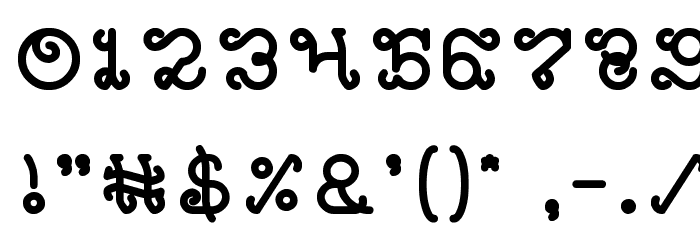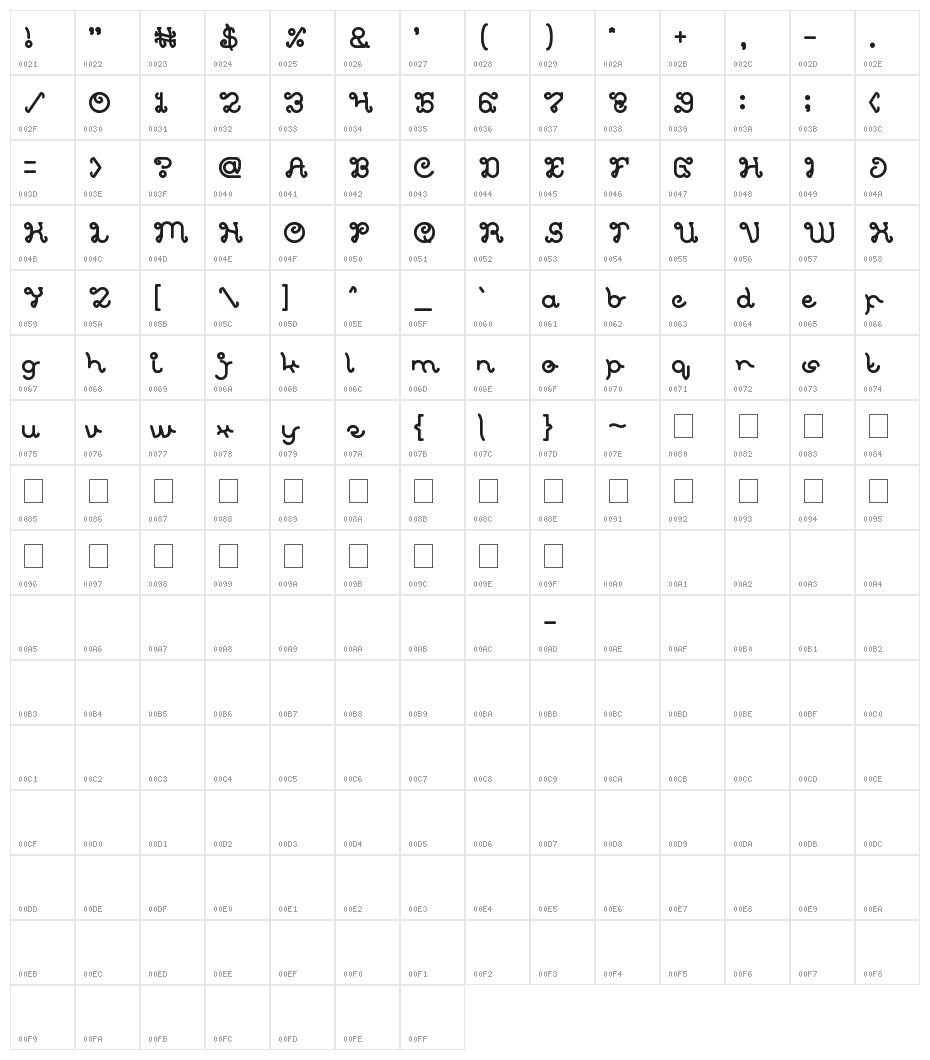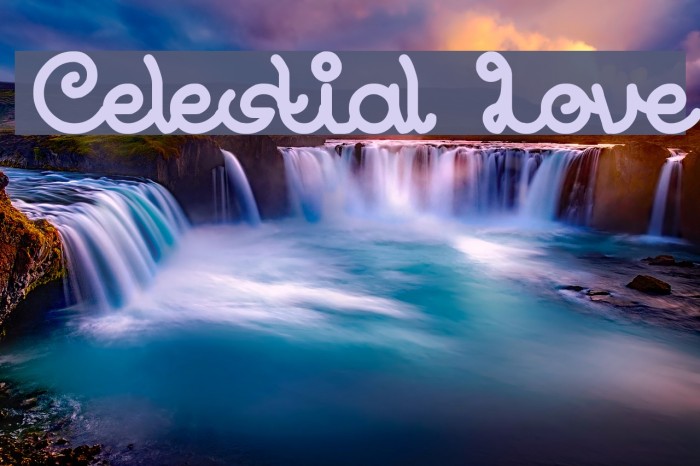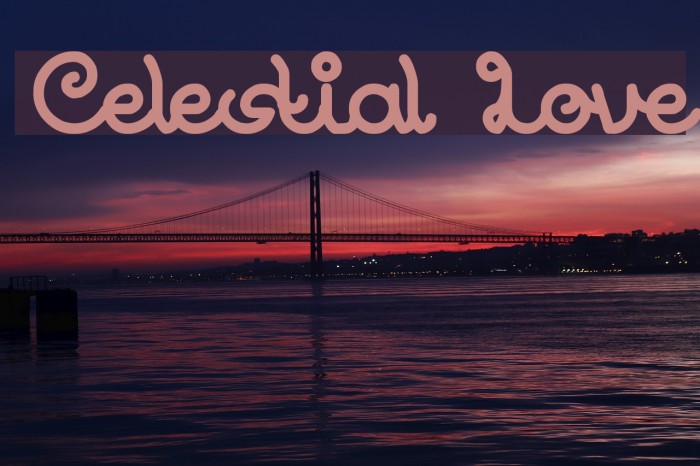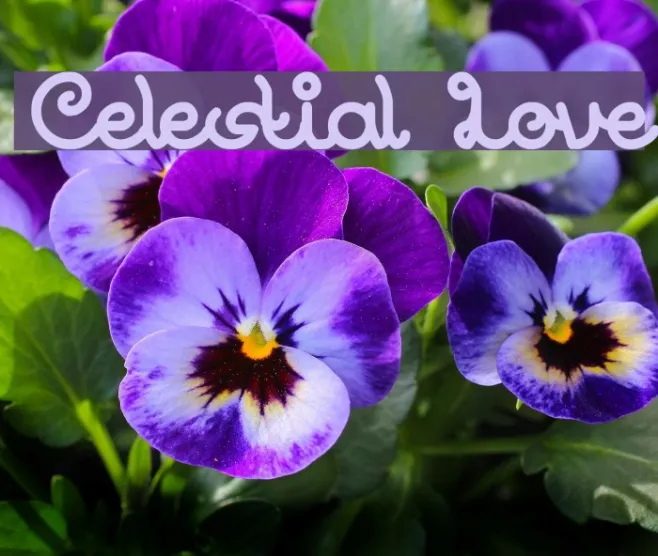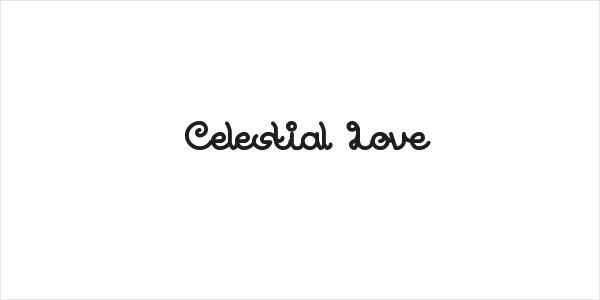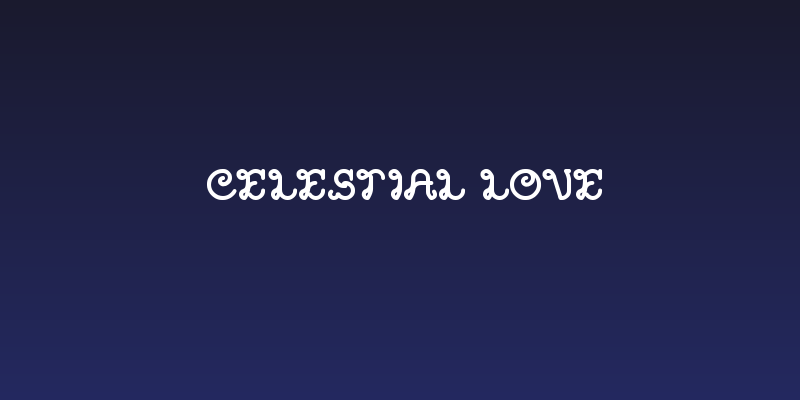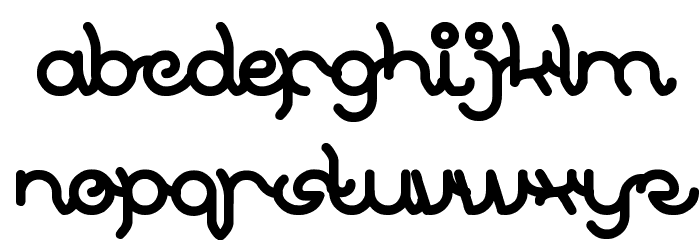
Celestial Love Font
Celestial Love Description
This font exhibits a playful and whimsical style, characterized by its curly and looping strokes. Each letter is crafted with a sense of movement and fluidity, creating a lively and dynamic appearance. The uppercase and lowercase letters maintain a consistent design, with rounded edges and a bold presence. Numbers and special characters follow the same playful theme, ensuring a cohesive look across all elements. The font's unique style makes it stand out, offering a sense of fun and creativity.